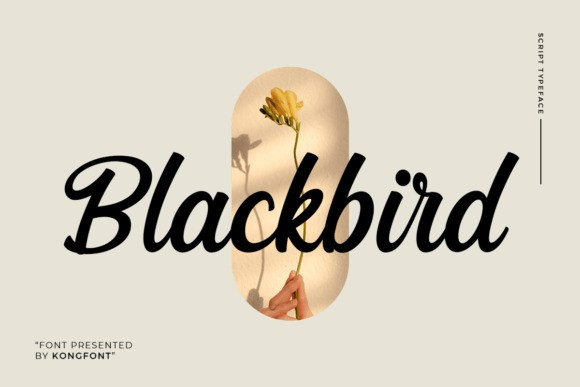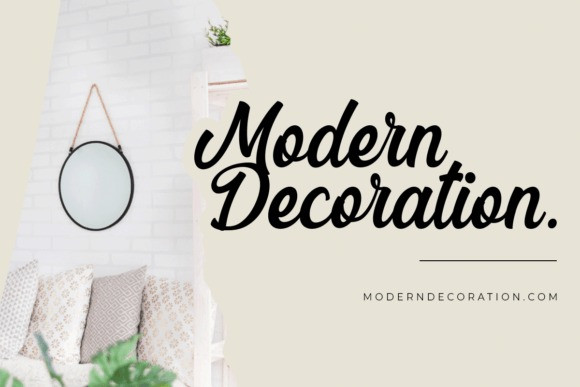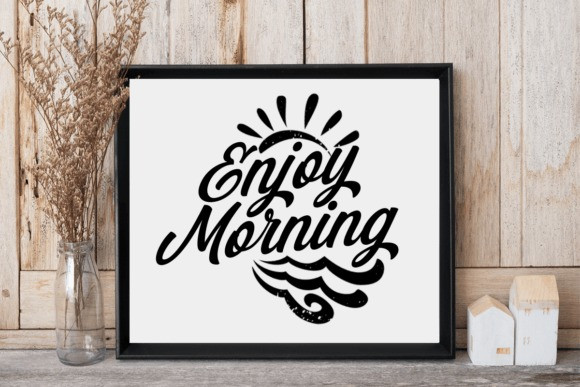
Blackbird Font
Blackbird is a modern and stylish script font. This font is neatly crafted and highly detailed. It looks great on wedding invitations, thank you cards, quotes, greeting cards, logos, business cards and every other design which needs a customized touch. This font is PUA encoded which means you can access all of the glyphs and swashes with ease!